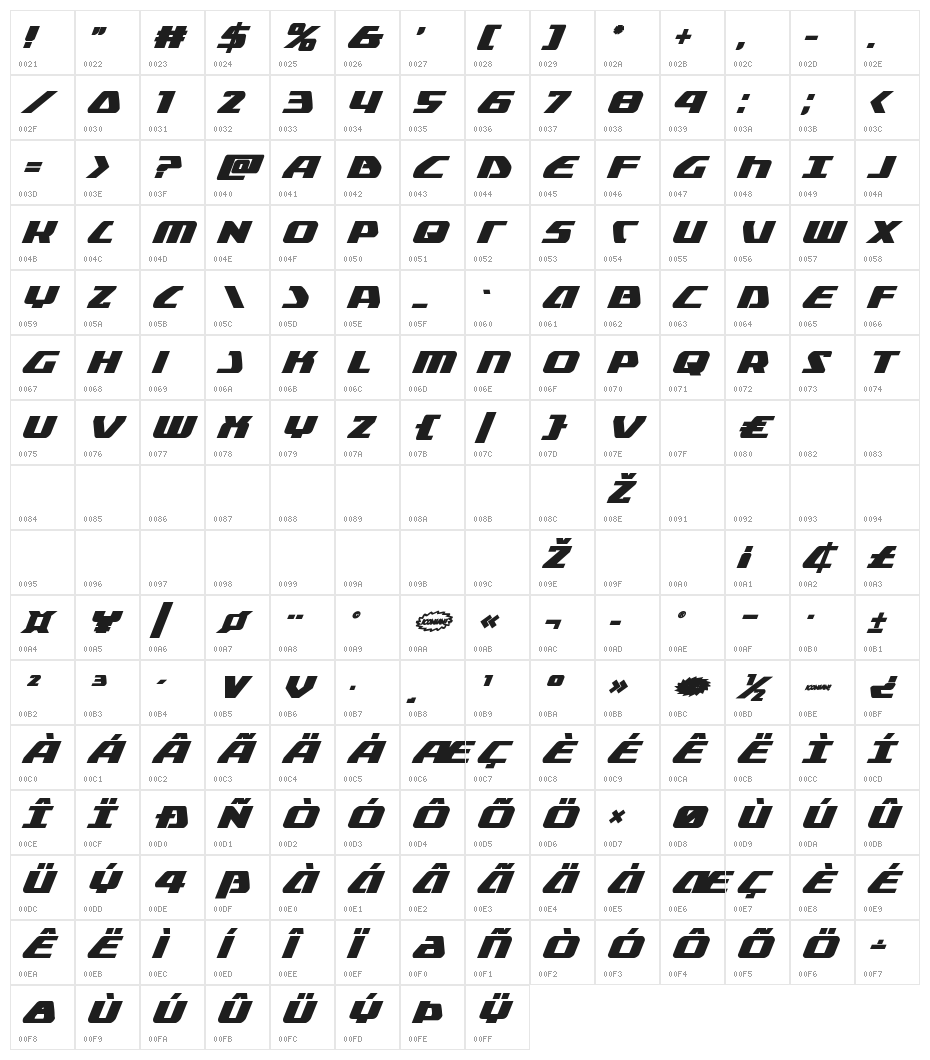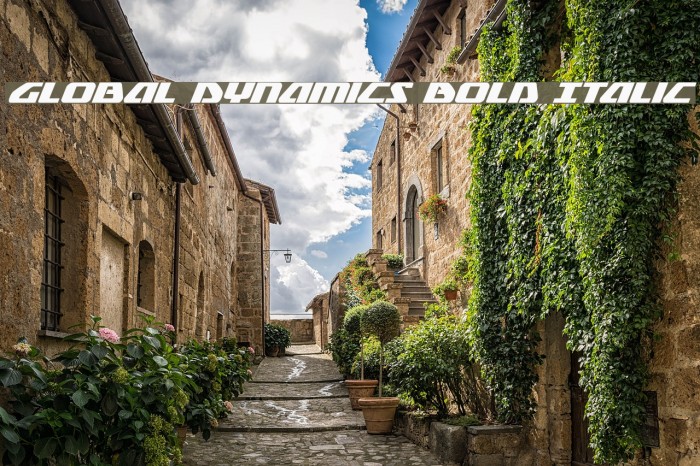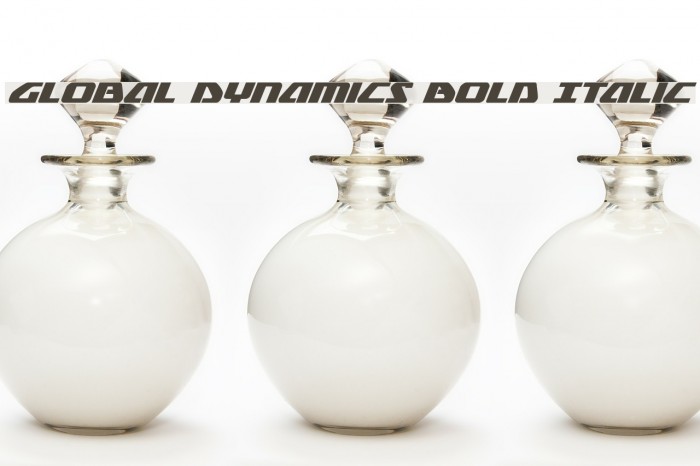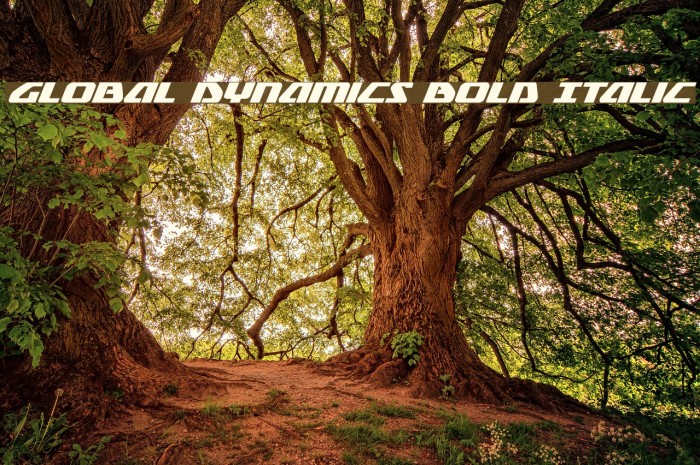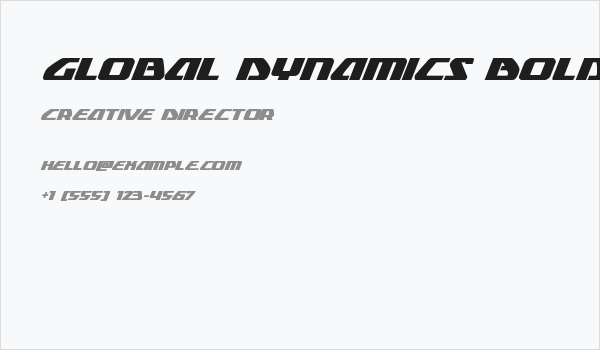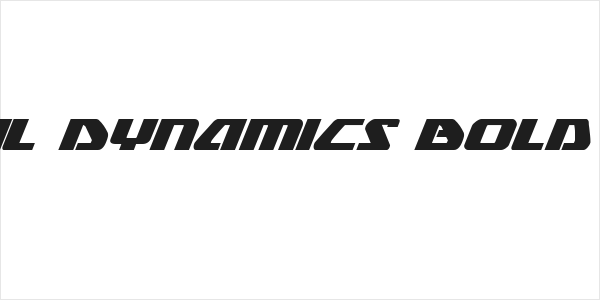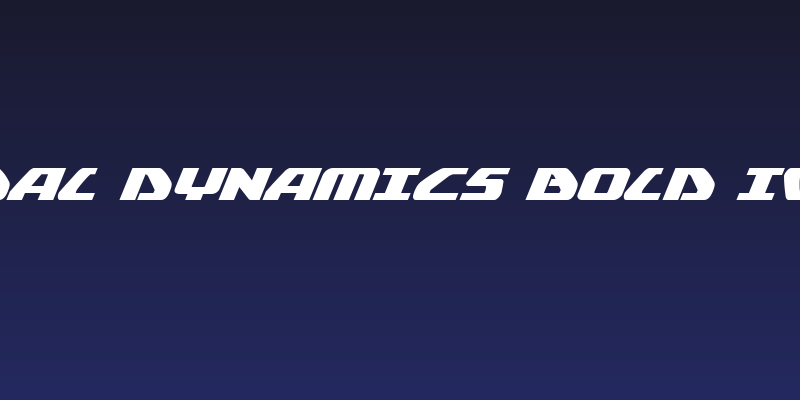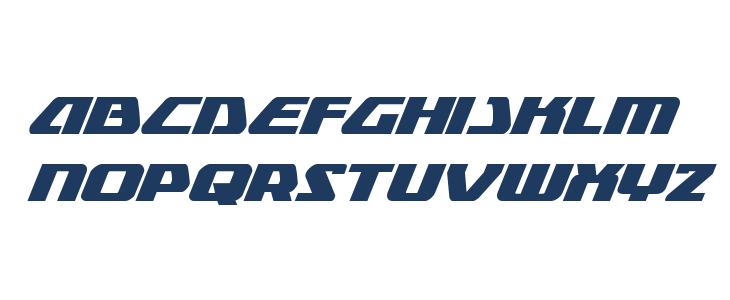
Global Dynamics Bold Italic Font
Global Dynamics Bold Italic Description
This font exhibits a bold and italicized style with a futuristic and dynamic appearance. The characters are sharply angled, giving a sense of motion and speed. The uppercase and lowercase letters maintain a consistent slant, enhancing the italic effect. The numbers and special characters follow the same angular design, ensuring uniformity across all glyphs. The font's bold weight and italic slant make it stand out, suitable for attention-grabbing designs. The overall style is modern and sleek, with a distinctive geometric influence.
| Proposed Projects | Ideal for sci-fi themed projects, video game titles, technology branding, and dynamic posters. |